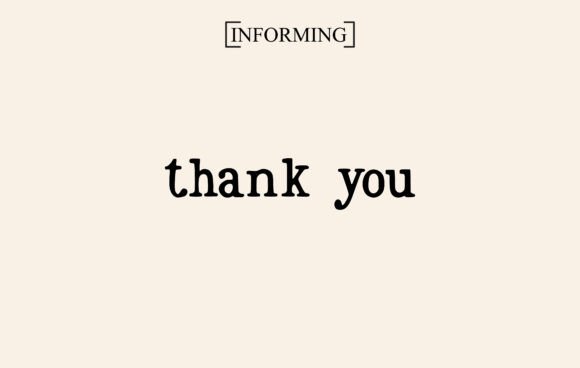
Dove Script Font: A Warm and Inviting Serif Font for Elegant Branding
The Dove Script Font is a beautiful, warm, and inviting serif font that exudes a gentle vintage tone. Designed with rounded curves and thoughtful spacing, this font brings a refined softness that is perfect for faith-based messages, elegant branding, and sentimental stationery. In this article, we’ll explore the features and benefits of the Dove Script Font and how it can elevate your design projects.
What is Dove Script Font?
Dove Script Font is a serif font that is characterized by its warm and inviting tone. The font features rounded curves and a gentle vintage feel that makes it perfect for designs that require a touch of elegance and sophistication. The font is designed with thoughtful spacing, which ensures that the text is easy to read and understand.
Features of Dove Script Font
The Dove Script Font has several features that make it an ideal choice for designers. Some of its key features include:
- Warm and Inviting Tone: The font has a warm and inviting tone that makes it perfect for faith-based messages, elegant branding, and sentimental stationery.
- Rounded Curves: The font features rounded curves that give it a soft and gentle feel.
- Thoughtful Spacing: The font is designed with thoughtful spacing, which ensures that the text is easy to read and understand.
- Smooth and Consistent Lines: The font has smooth and consistent lines that make it perfect for designs that require a high level of elegance and sophistication.
Benefits of Using Dove Script Font
The Dove Script Font offers several benefits to designers, including:
- Elegant and Sophisticated Designs: The font is perfect for designs that require a high level of elegance and sophistication, such as luxury branding, wedding stationery, and faith-based messages.
- Easy to Read: The font is designed with thoughtful spacing, which ensures that the text is easy to read and understand.
- Versatile: The font is versatile and can be used for a wide range of design projects, including logos, branding, stationery, and more.
- Unique and Distinctive: The font has a unique and distinctive style that sets it apart from other fonts.
Use Cases for Dove Script Font
The Dove Script Font is perfect for a wide range of design projects, including:
- Faith-Based Messages: The font is perfect for faith-based messages, such as church bulletins, prayer cards, and inspirational quotes.
- Elegant Branding: The font is perfect for elegant branding, such as luxury logos, high-end product packaging, and upscale website designs.
- Sentimental Stationery: The font is perfect for sentimental stationery, such as wedding invitations, baby shower cards, and thank-you notes.
- Wedding Designs: The font is perfect for wedding designs, such as wedding invitations, wedding programs, and wedding decorations.
Tips for Using Dove Script Font
Here are some tips for using the Dove Script Font:
- Use it for Headings and Titles: The font is perfect for headings and titles, as it adds a touch of elegance and sophistication to your designs.
- Pair it with a Sans-Serif Font: The font pairs well with sans-serif fonts, such as Arial or Helvetica, which create a nice contrast and make the text easy to read.
- Use it for Large Text: The font is perfect for large text, such as billboards, posters, and signage.
- Experiment with Colors: The font looks great in a variety of colors, so don’t be afraid to experiment and find the perfect color for your design.
The Dove Script Font is a beautiful, warm, and inviting serif font that is perfect for faith-based messages, elegant branding, and sentimental stationery. With its rounded curves, thoughtful spacing, and smooth lines, this font brings a refined softness that elevates any design project. Whether you’re a designer or a DIY enthusiast, the Dove Script Font is a great choice for any project that requires a touch of elegance and sophistication.
- What is the Dove Script Font?: The Dove Script Font is a warm and inviting serif font with a gentle vintage tone.
- What is the Dove Script Font used for?: The font is perfect for faith-based messages, elegant branding, and sentimental stationery.
- Is the Dove Script Font easy to read?: Yes, the font is designed with thoughtful spacing, which ensures that the text is easy to read and understand.